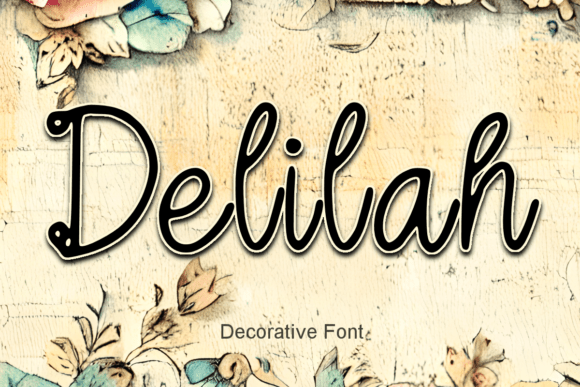
Delilah Font: The Enchanting, Fanciful Typeface for Creative Projects
Are you looking for a font that can add a touch of magic to your creative projects? Look no further than the Delilah font. This charmingly decorative typography is designed to captivate your audience with its uniquely artistic flair, making it the perfect choice for projects that require a dash of whimsy and fun.
The Characteristics of Delilah Font
Delilah font is an enchanting, fanciful typeface that promises to inject a wave of delight into your creative endeavors. Its lively character is designed to transform your project into a piece of art infused with joy. The font features:
- Uniquely artistic flair: Delilah font boasts a distinctive and artistic design that sets it apart from other fonts.
- Charmingly decorative: The font’s decorative elements add a touch of whimsy and fun to any project.
- Lively character: Delilah font has a lively and energetic personality that is sure to captivate your audience.
The Benefits of Using Delilah Font
Using Delilah font in your creative projects offers a range of benefits, including:
- Emotional Connection: The font’s charming and whimsical design helps to create an emotional connection with your audience.
- Visual Appeal: Delilah font’s unique artistic flair adds visual appeal to your project, making it stand out from the crowd.
- Versatility: The font is versatile and can be used in a range of creative projects, from branding and advertising to packaging and digital media.
- Easy to Read: Despite its decorative nature, Delilah font is easy to read, making it perfect for body text and headlines.
How to Use Delilah Font in Your Creative Projects
Delilah font is easy to use and can be incorporated into a range of creative projects. Here are some ideas to get you started:
- Branding and Identity: Use Delilah font to create a unique and memorable brand identity that stands out from the crowd.
- Digital Media: Add a touch of whimsy to your digital media projects, such as social media graphics, videos, and websites.
- Packaging: Use Delilah font to create eye-catching packaging that grabs attention.
- Advertising: Add a dash of fun and creativity to your advertising campaigns with Delilah font.
Tips for Pairing Delilah Font with Other Fonts
Pairing Delilah font with other fonts can help to create a unique and visually appealing design. Here are some tips for pairing Delilah font with other fonts:
- Pair with a Serif Font: Pair Delilah font with a serif font, such as Times New Roman or Garamond, to create a striking contrast.
- Pair with a Sans-Serif Font: Pair Delilah font with a sans-serif font, such as Arial or Helvetica, to create a clean and modern look.
- Use a Font with a Similar Style: Pair Delilah font with a font that has a similar style or theme to create a cohesive look.
The History of Delilah Font
Delilah font was designed to provide a unique and creative solution for designers and artists. The font was inspired by traditional decorative typography and was designed to be both functional and beautiful.
The font’s creator aimed to create a typeface that would add a touch of magic to any project, and Delilah font has certainly achieved that goal. With its enchanting and fanciful design, Delilah font has become a popular choice among designers and artists.
In conclusion, Delilah font is an enchanting, fanciful typeface that promises to inject a wave of delight into your creative endeavors. Its uniquely artistic flair and charmingly decorative design make it the perfect choice for projects that require a dash of whimsy and fun.
Whether you’re a designer, artist, or simply someone looking for a unique and creative solution, Delilah font is sure to captivate your audience and add a touch of magic to your project.